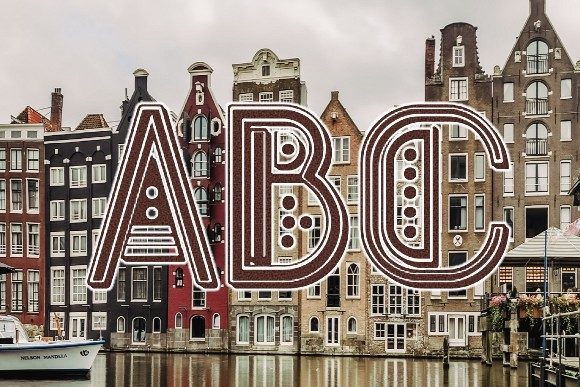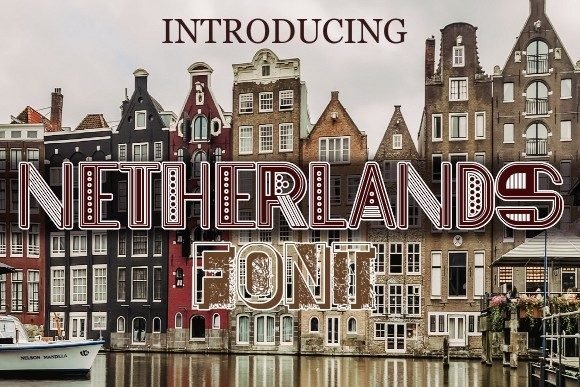
Introduction to Netherlands Font
Netherlands is a cool and city-like decorative font that will truly inspire your work.
Netherlands Font offers exceptional quality and versatility, making it a valuable addition to your design toolkit. Whether you’re creating for personal projects or commercial use, Netherlands Font delivers professional results.